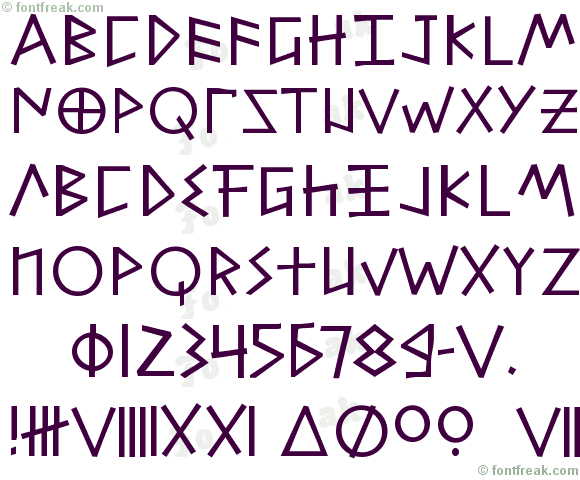
Alfabetix
Alfabetix is a striking display font by Apostrophic Labs, released in 2001 as freeware. This playful typeface captivates with its unique character, making it an excellent choice for a variety of design projects. Alfabetix falls into the decorative category, featuring a bold and whimsical style that stands out in any setting. The font boasts a medium stroke weight with moderate contrast, giving it a friendly yet impactful presence. Its letterforms are well-spaced, enhancing readability while maintaining a fun, energetic vibe that draws the eye.
This font is particularly well-suited for creative applications such as wedding invitations, where its charming aesthetic can convey warmth and celebration. It also excels in movie posters, lending a dynamic flair that captures attention and evokes curiosity. Restaurant menus can benefit from the inviting character of Alfabetix, making dishes feel more appealing and accessible. Additionally, it serves as an excellent choice for branding materials, helping small business owners establish a memorable identity that resonates with their audience. Content creators will find Alfabetix an engaging option for social media graphics, ensuring their posts stand out in a crowded digital landscape.
Targeting graphic designers, small business owners, and content creators, Alfabetix offers a versatile solution for anyone looking to infuse their work with creativity and personality. The Alfabetix font free download provides accessibility for all types of projects, encouraging experimentation and innovation in design. What truly sets Alfabetix apart is its blend of fun and functionality; it invites exploration while remaining practical for diverse use cases. This unique combination makes it a standout choice for anyone seeking to elevate their design work with a touch of whimsy.